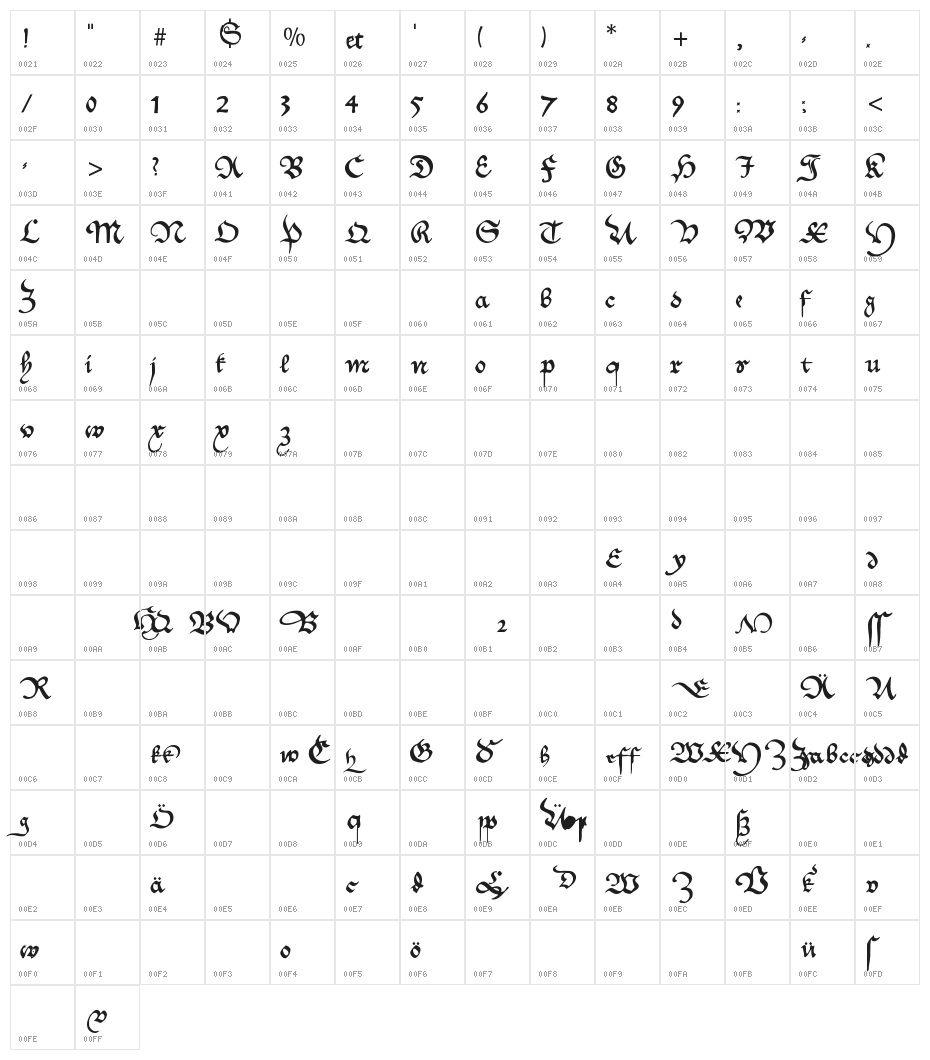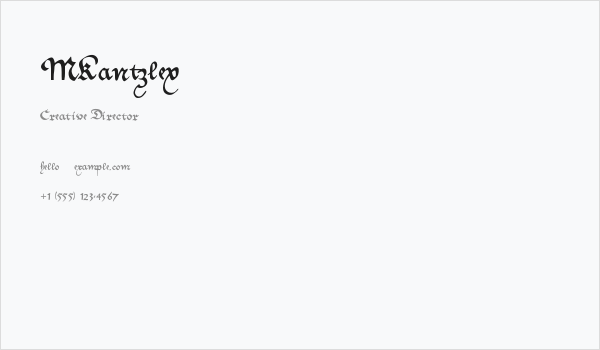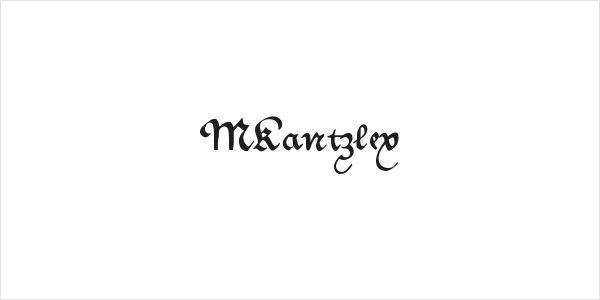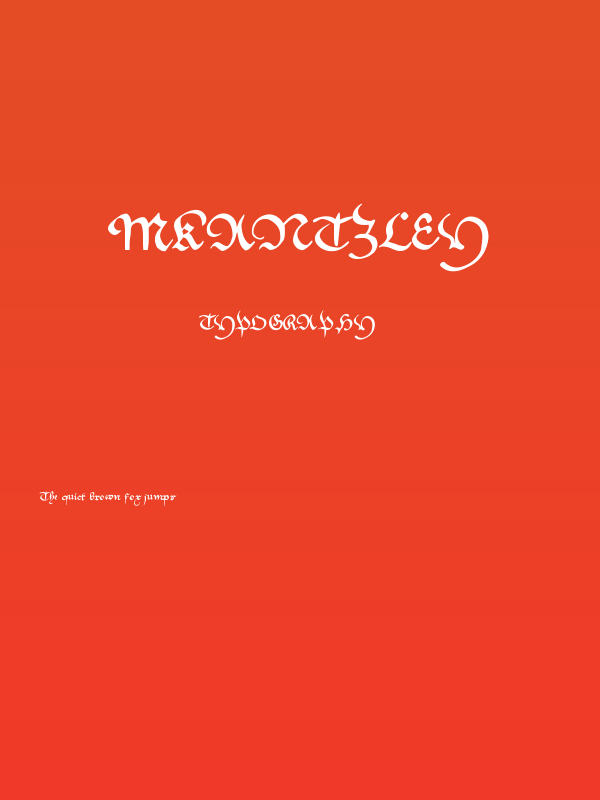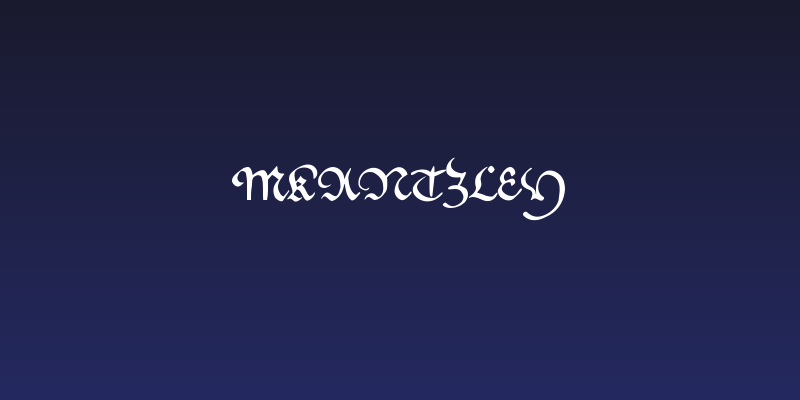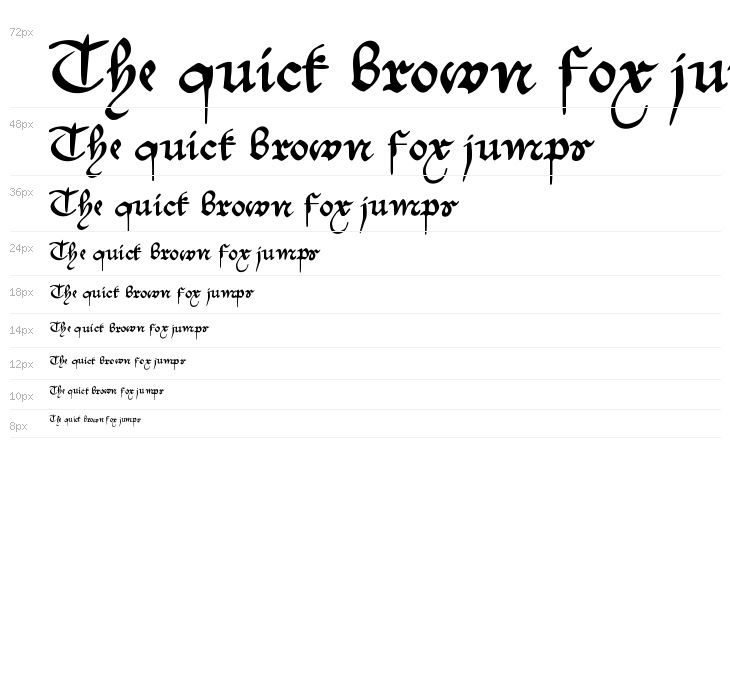
MKantzley Font
MKantzley Description
This font exhibits a classic blackletter style, characterized by its ornate and intricate design. The letters feature sharp, angular strokes with dramatic flourishes, giving it a medieval and gothic appearance. The uppercase letters are particularly elaborate, with unique embellishments that enhance their decorative nature. The lowercase letters maintain the same level of detail, ensuring consistency throughout the typeface. Numerals are stylized to match the overall theme, incorporating similar angular and bold elements. Special characters are also designed to complement the font's aesthetic, making it suitable for projects that require a historical or traditional touch.
| Proposed Projects | Ideal for historical documents, invitations, posters, and branding that require a medieval or gothic theme. |